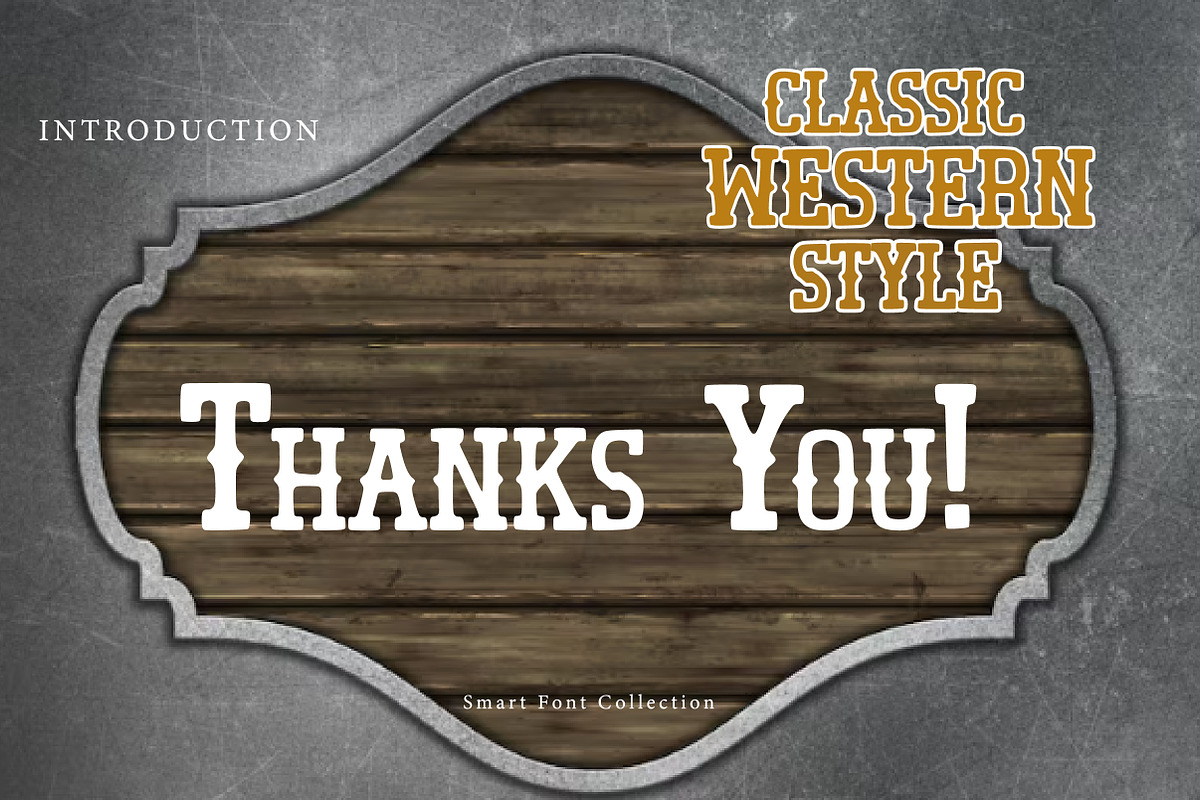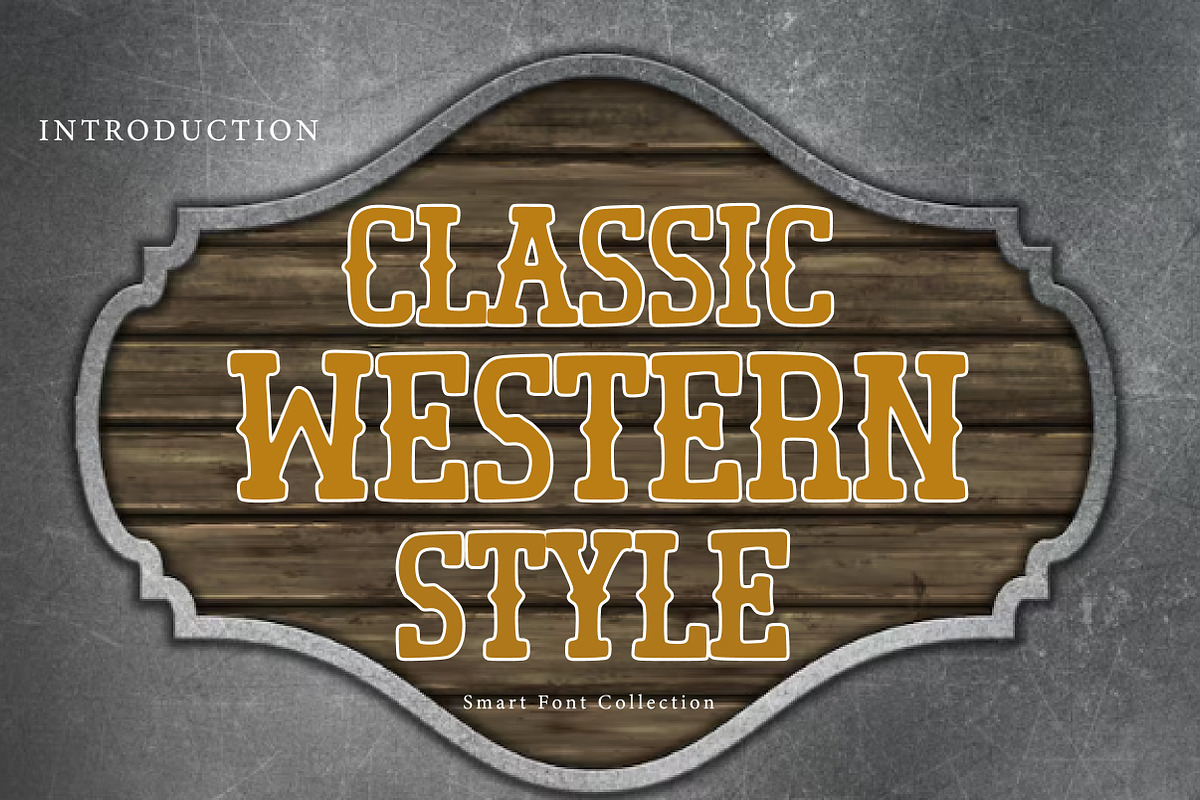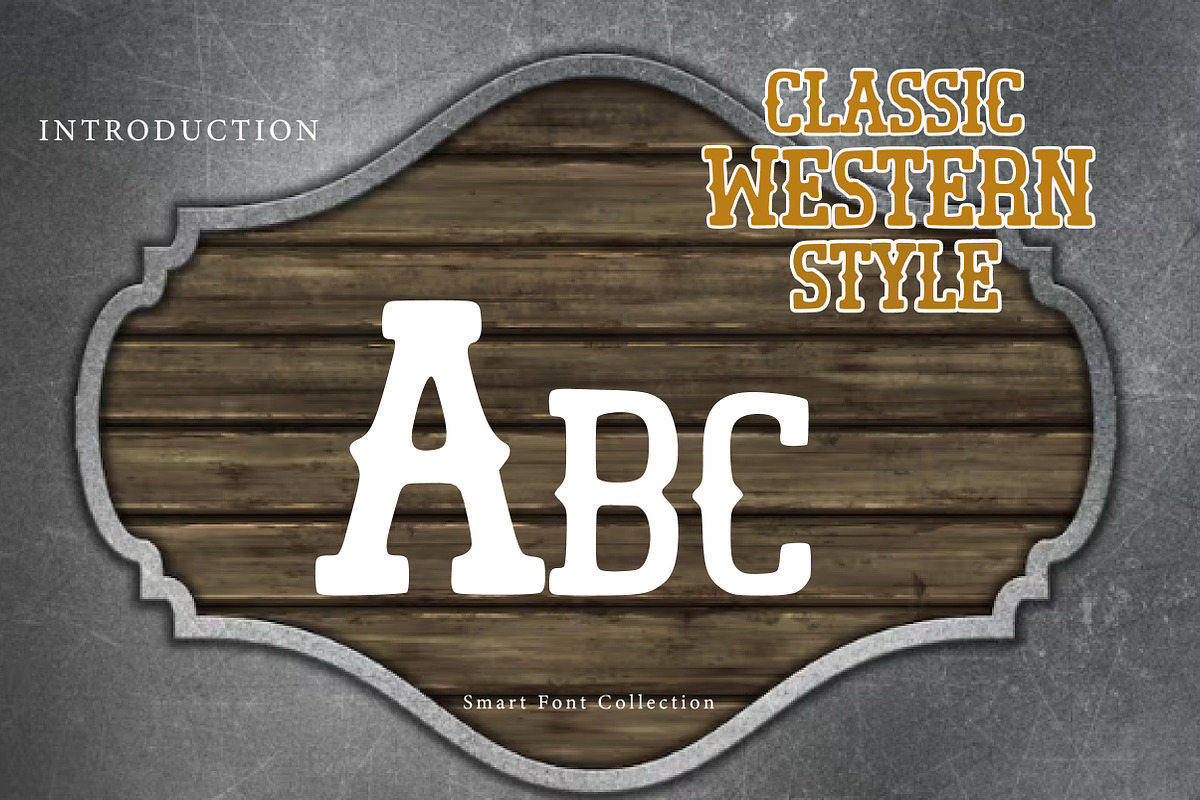
Classic western style
Classic Western Style is a bold vintage display typeface inspired by traditional Wild West signage and old American frontier typography. It features strong slab-like serifs, sturdy letterforms, and a rugged, nostalgic character that evokes cowboy culture, saloons, and western posters. This font is perfect for logos, posters, headlines, packaging, apparel, signage, and branding projects that need an authentic western, rustic, or retro Americana look.